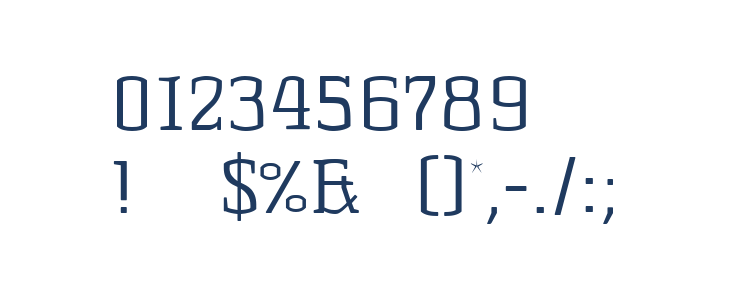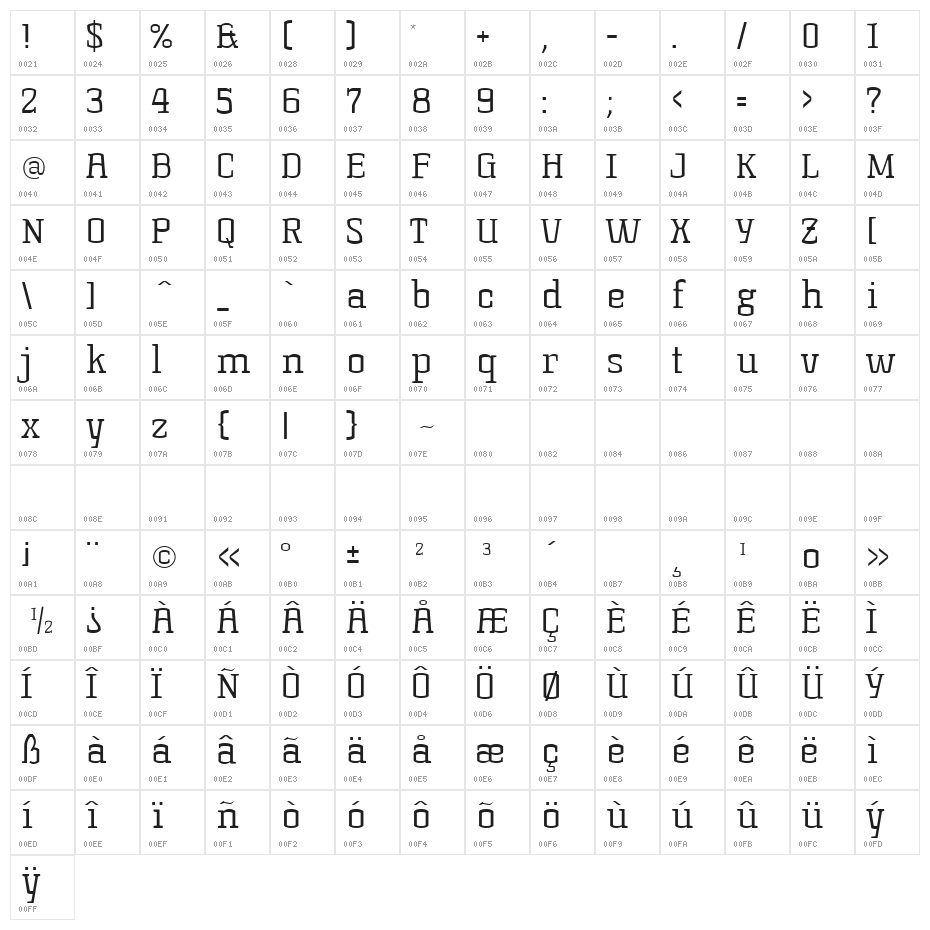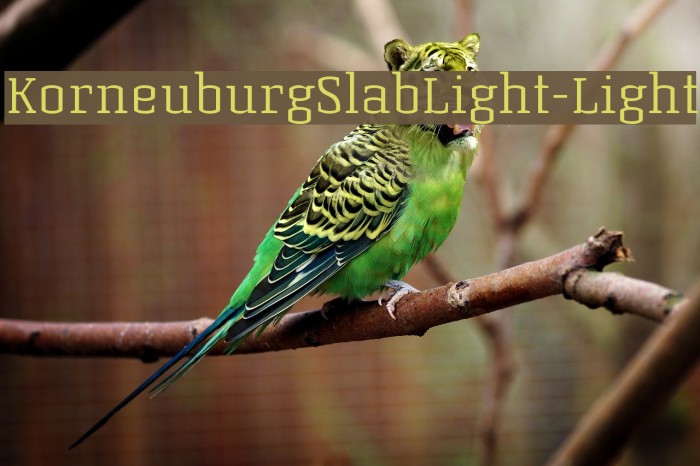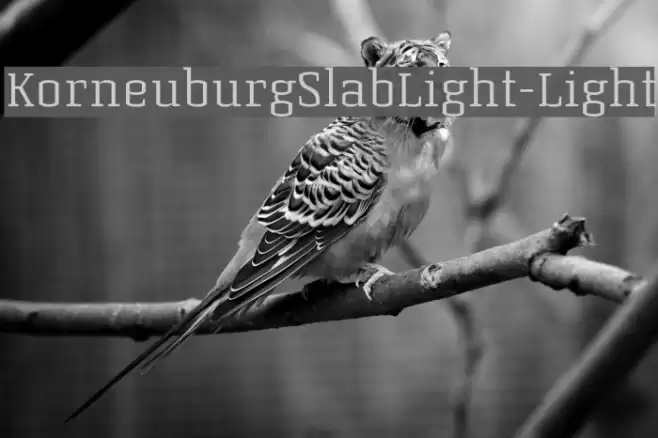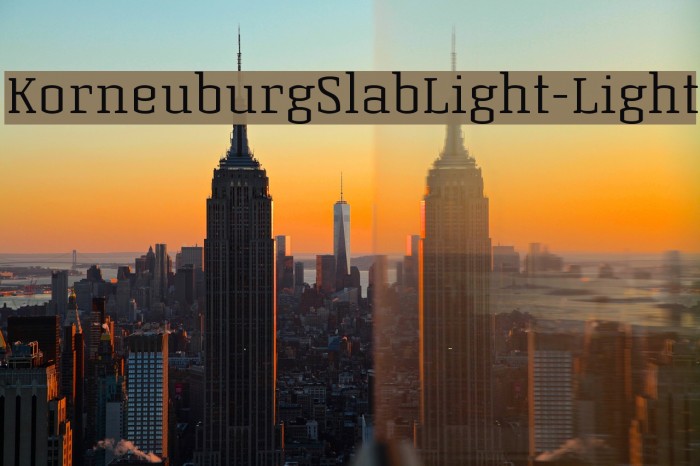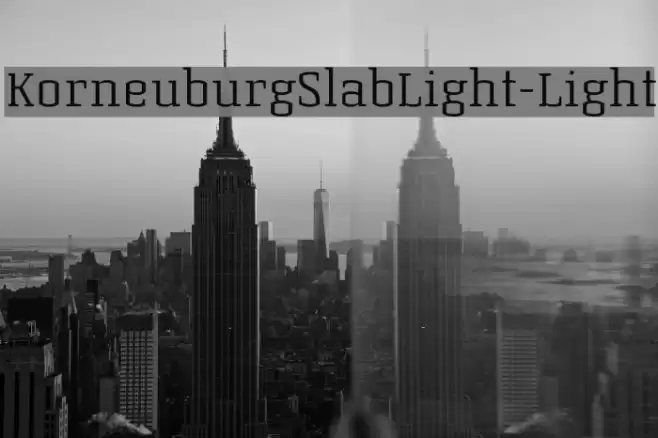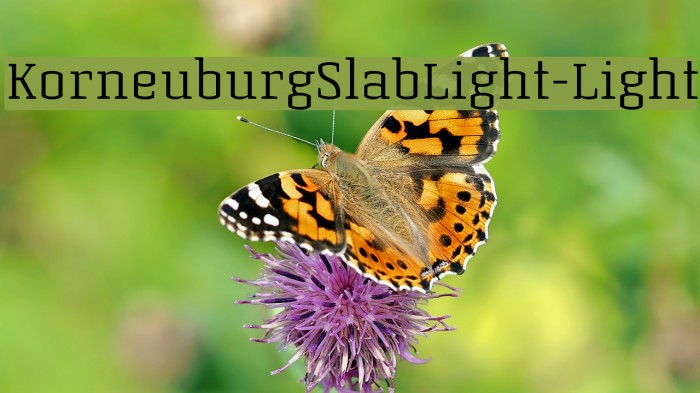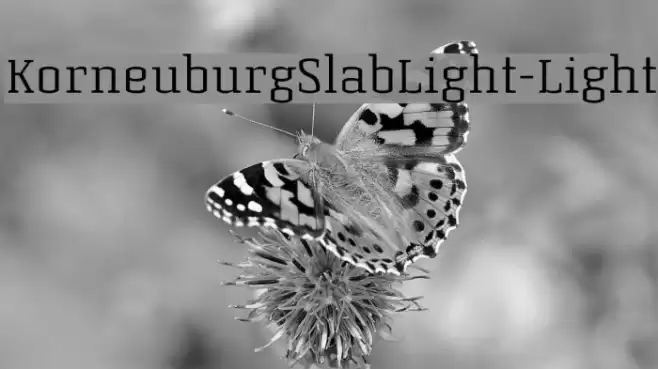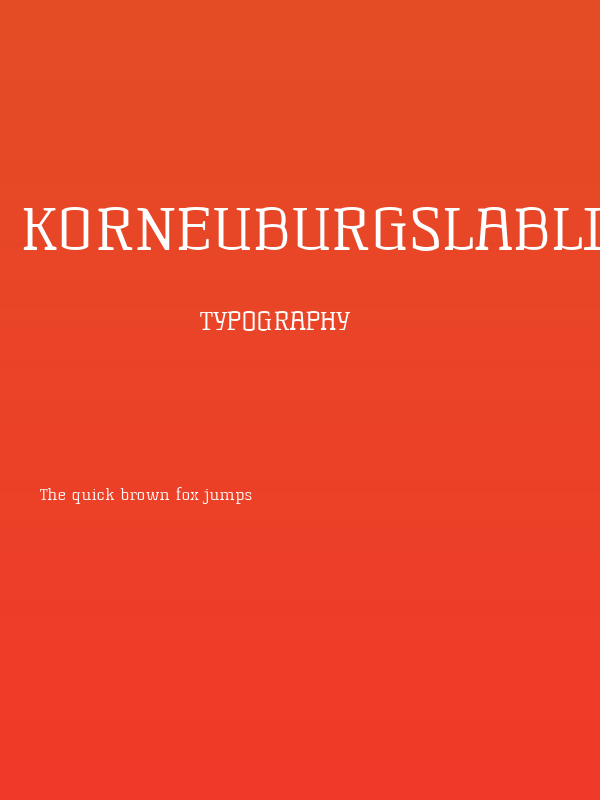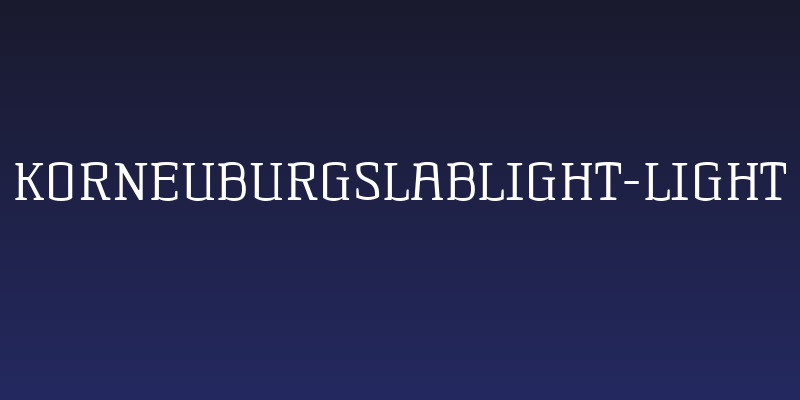
KorneuburgSlabLight-Light Font
KorneuburgSlabLight-Light Description
This font exhibits a classic slab serif style with a modern twist. The characters are defined by their strong, rectangular serifs and a uniform stroke width that gives a sense of stability and reliability. The uppercase letters are bold and commanding, while the lowercase letters maintain a consistent height and width, providing a harmonious balance. The numerals are clear and easily distinguishable, making them ideal for both display and body text. Special characters are well-integrated, maintaining the overall aesthetic of the font. The design is clean and legible, suitable for a variety of applications.
| Proposed Projects | Ideal for branding, editorial design, signage, and web design projects. |